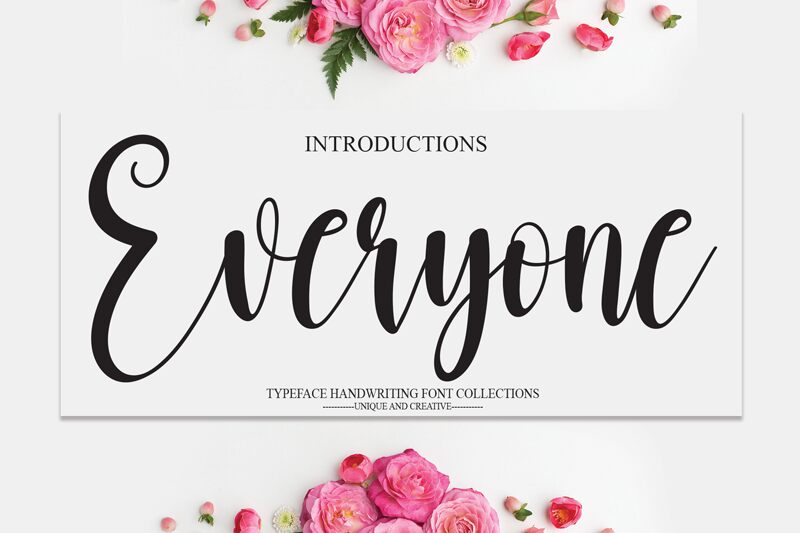
Everyone
Everyone is a stunning calligraphy font designed by scratchones. With its semi-light weight, it exudes elegance and sophistication in every stroke. This font is perfect for wedding invitations, romantic quotes, and any project that requires a touch of class. Everyone's flowing curves and delicate lines make it ideal for creating beautiful logos, branding materials, and packaging designs that will catch the eye of your audience. Whether you're designing a fancy restaurant menu or a high-end fashion magazine, Everyone is the perfect addition to your typography toolbox. Make your designs stand out with Everyone's unique calligraphic style!
the latest style letters are perfect for wall displays, wedding invitations, social media post logos,
advertisements, product packaging, product designs, labels, photography, watermarks, invitations, stationery,
and any project that requires taste handwriting.